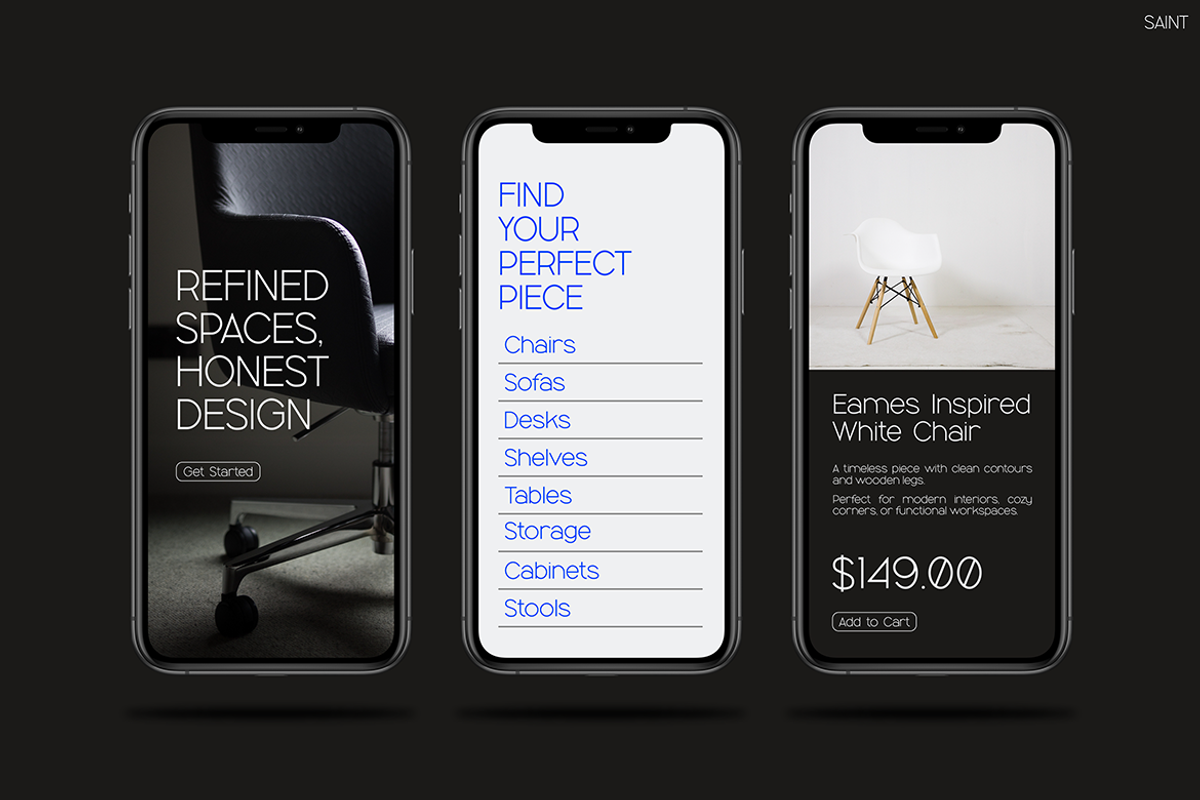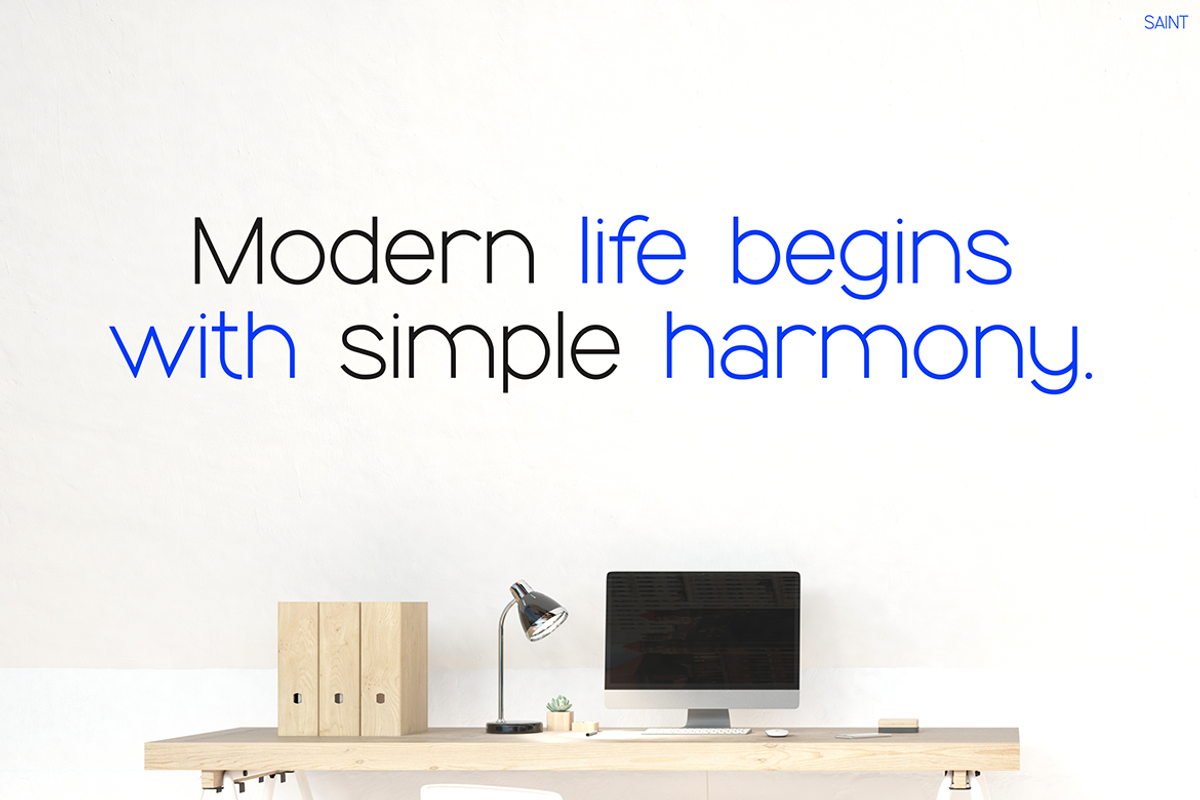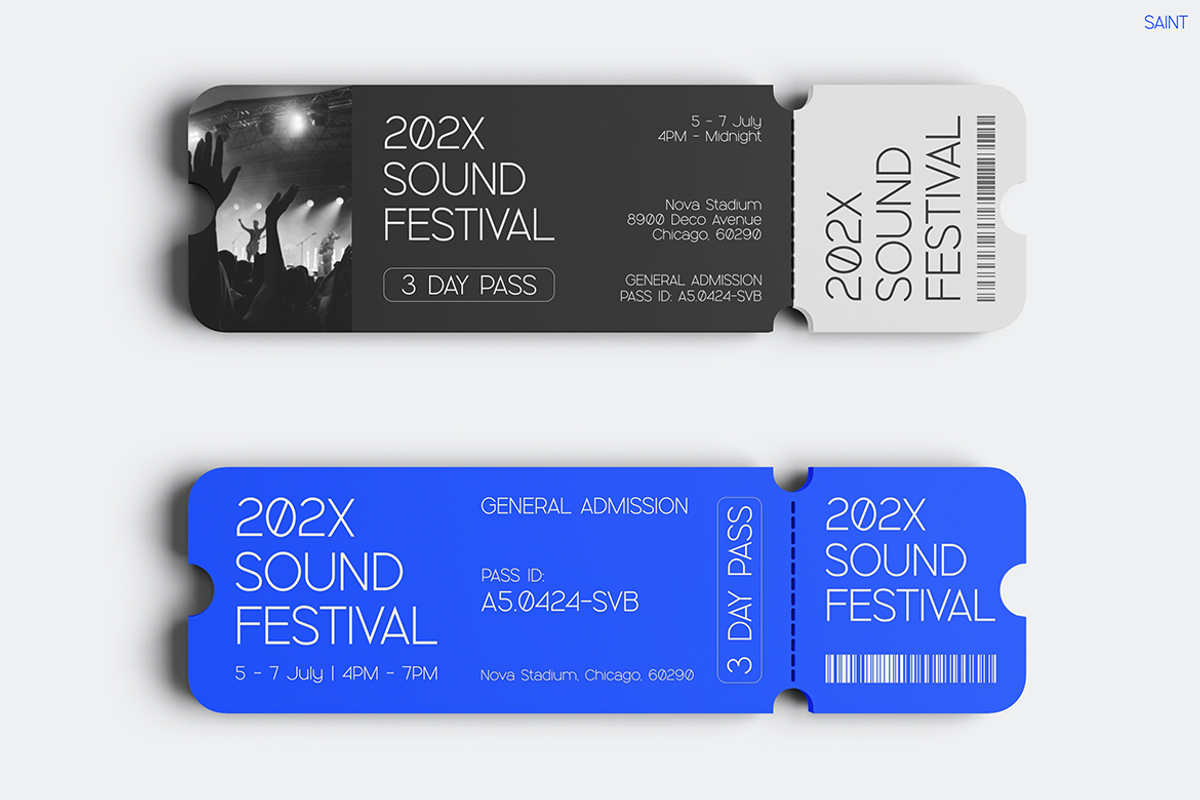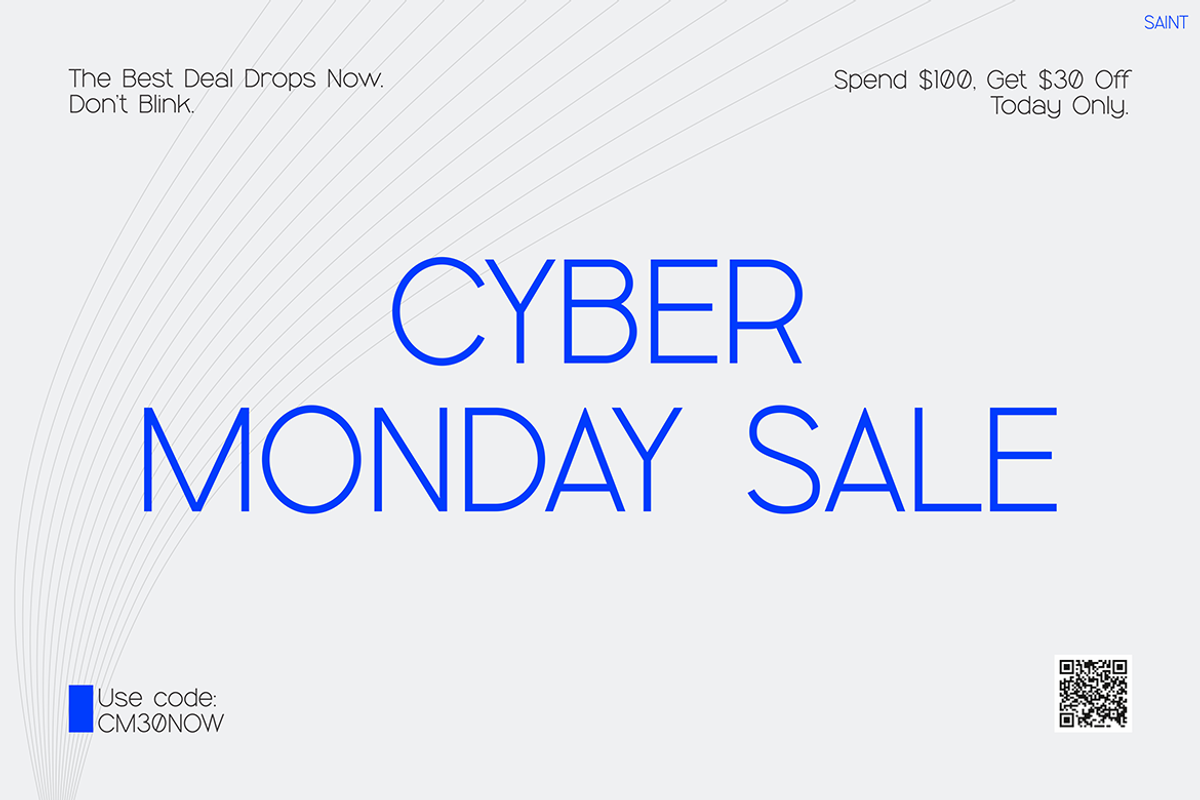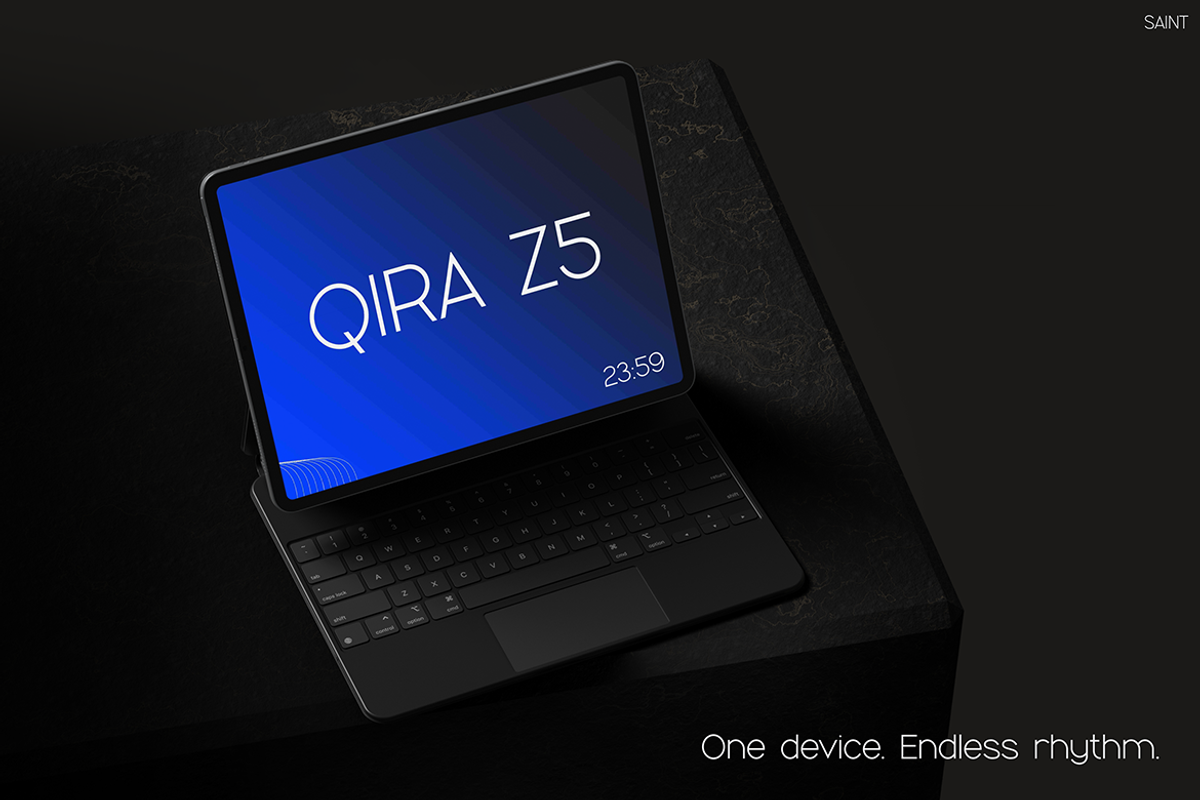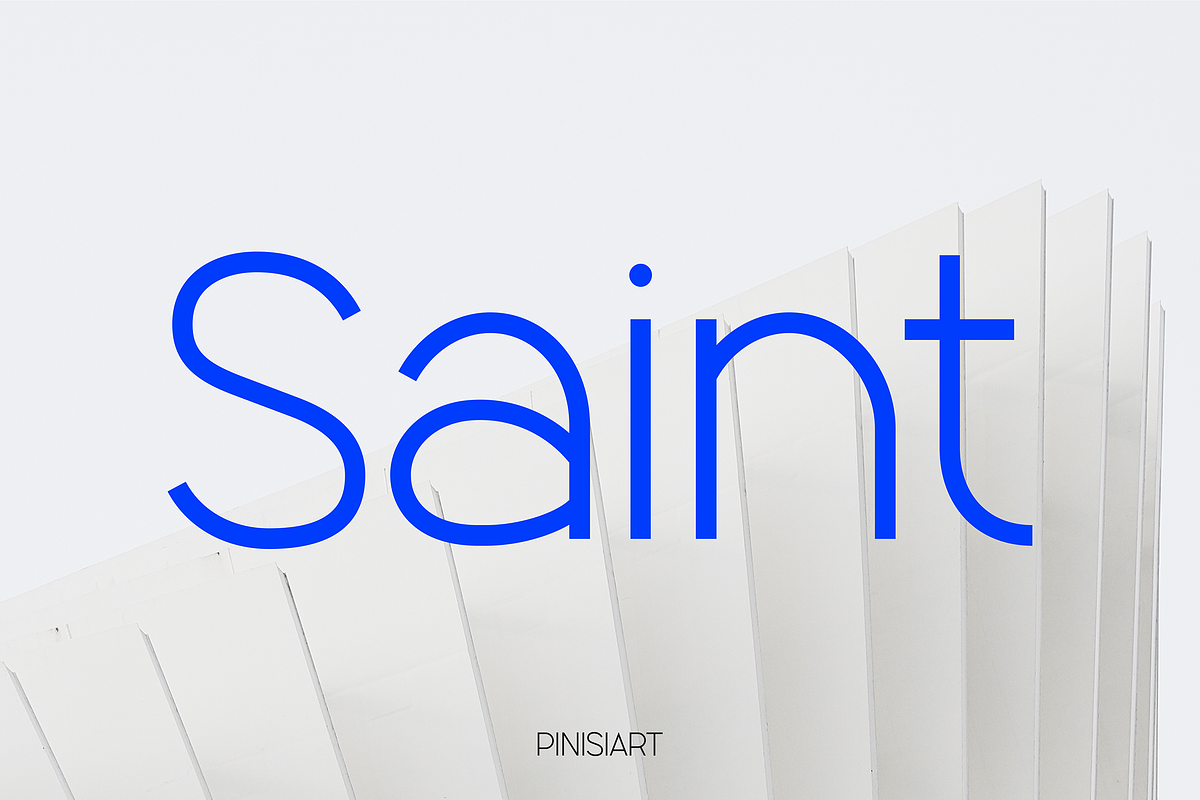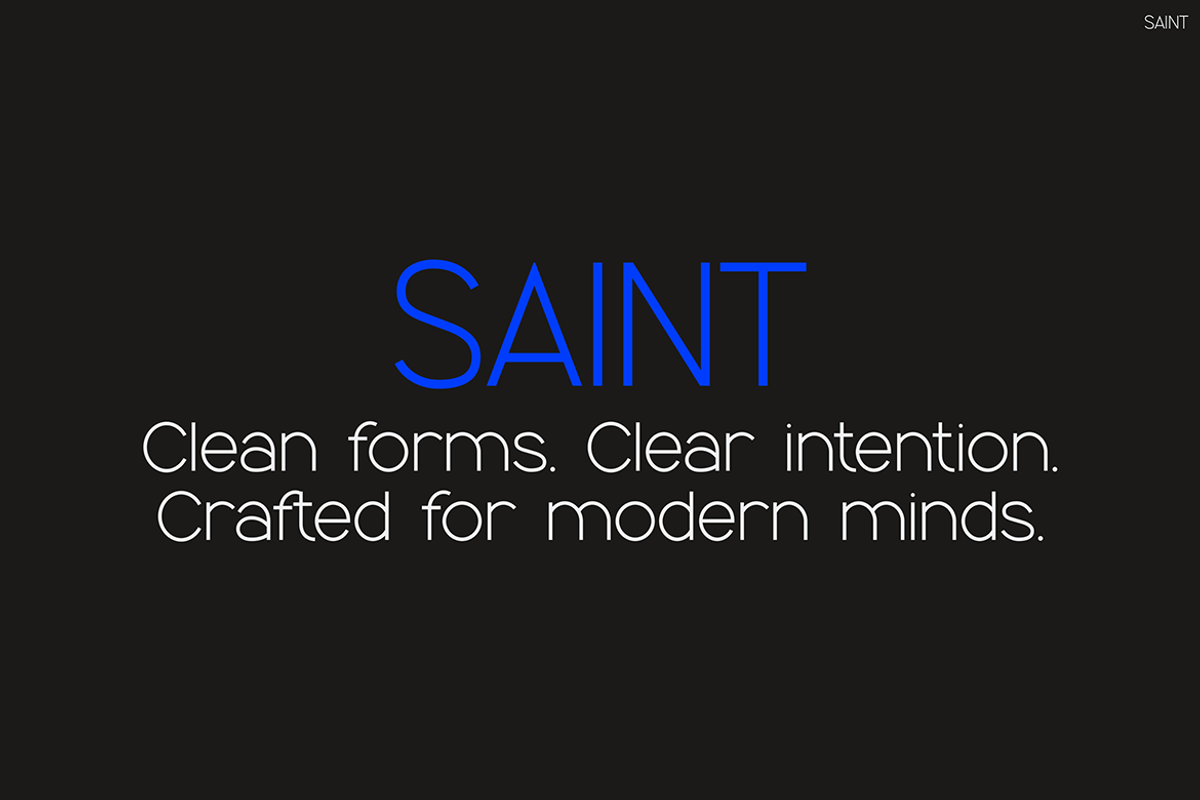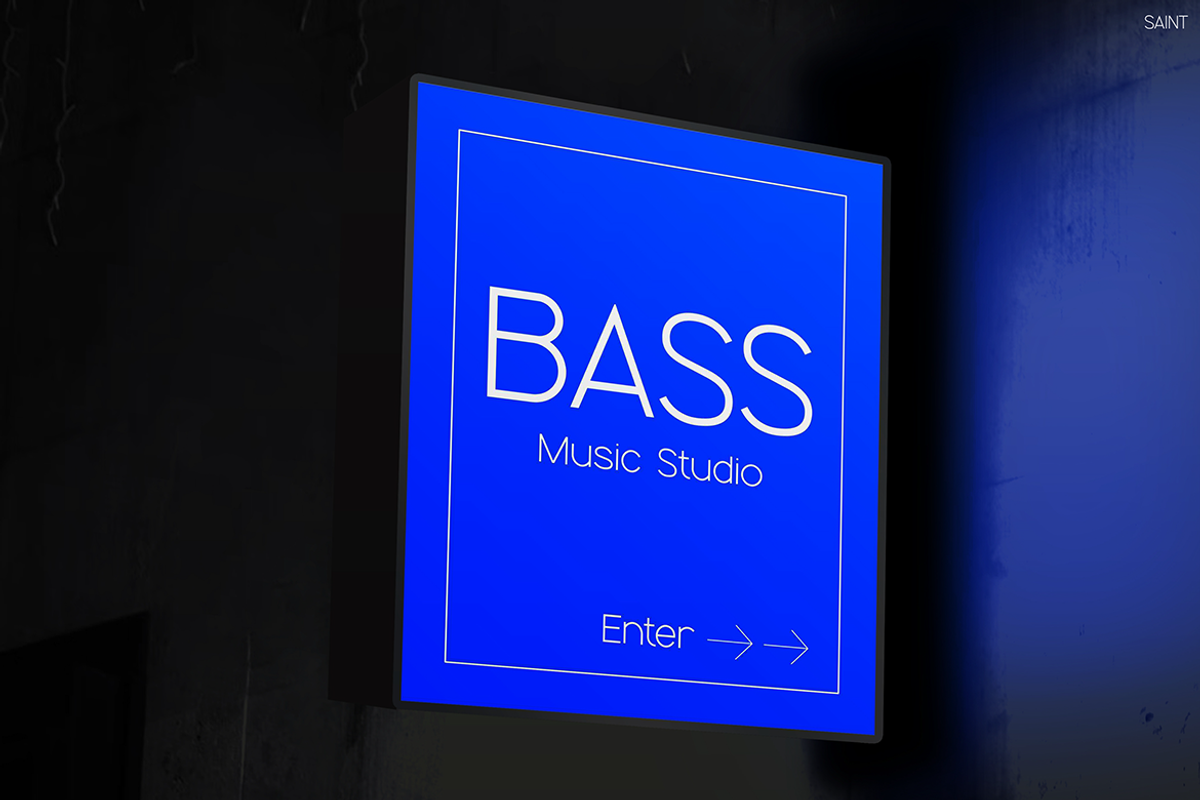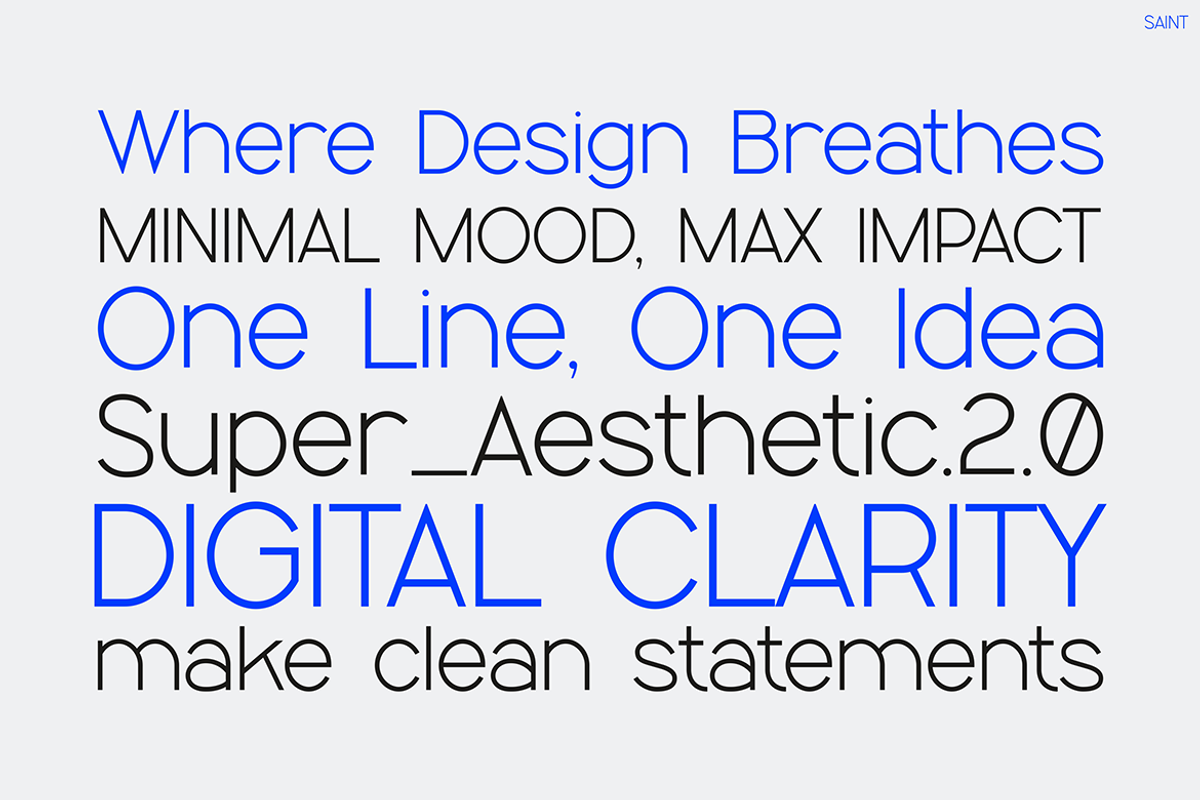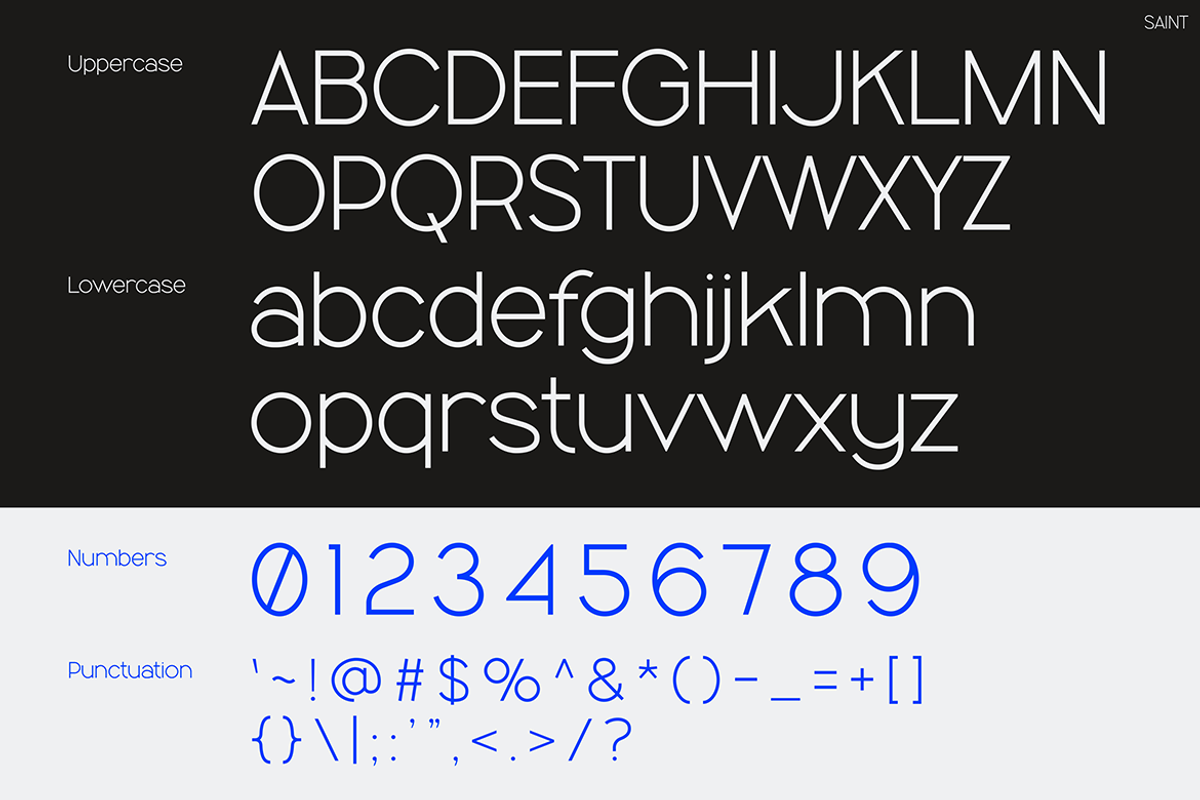
Saint
Instagram Font Saint – Where Modern Simplicity Meets Bold Clarity
Instagram Font Saint brings a sharp, modern vibe to any visual content. With its geometric precision and balanced structure, this typeface helps you create clean, high-impact designs that feel professional and fresh. Every letterform reflects intention—curved where it should soothe, angular where it should lead. The result is a harmonious blend of simplicity and confidence that works seamlessly across digital and print media.
Unlike many minimalist fonts that lack personality, Saint injects character into clarity. It stands out through its ultra-consistent stroke weight and excellent readability, making it ideal for both headlines and body text. You can spot its visual rhythm in tech branding, product presentations, music event posters, and digital ads—where clarity is key but style still matters. This font doesn’t just deliver information; it commands attention while doing it.
Saint performs beautifully on-screen, in apps, websites, and social media. Its dynamic letterforms ensure legibility in both small and large sizes. Use it for mood-driven branding or minimalist campaigns where every design element needs to earn its place. Whether it’s for a fashion drop or a software launch, Saint gives your project a distinct voice.